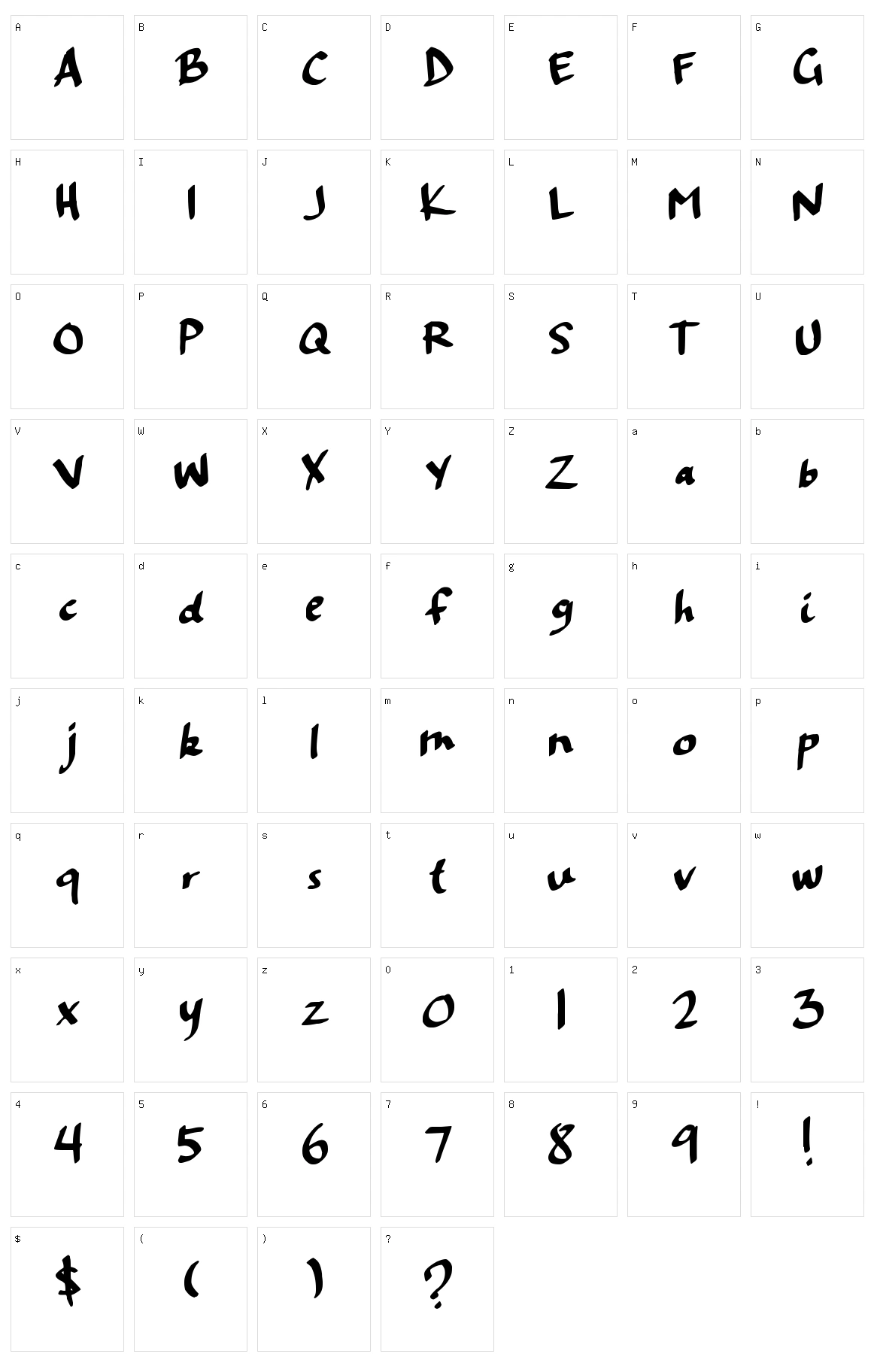
The free font Fifty Shadows DT is carefully designed by Xerographer Fonts, showcasing a thoughtful balance of creativity and usability and falls under the Script font style. When you download the ZIP file, it contains only 10.46 KB of font files, making it lightweight and quick to download. Please review the license details below to understand permitted usage and distribution rights. If license information is not available, we recommend using this font for personal projects only or contacting the author directly for commercial usage permissions.